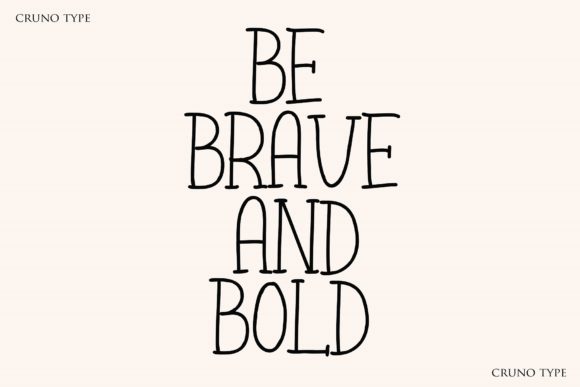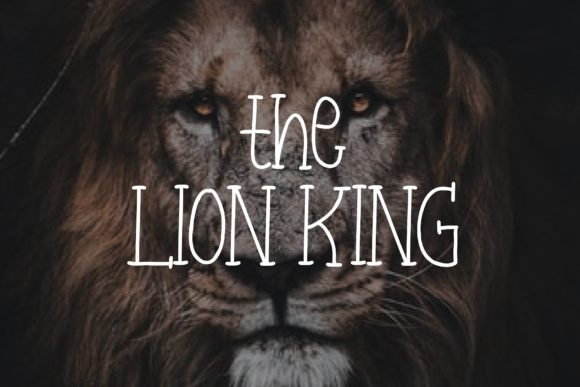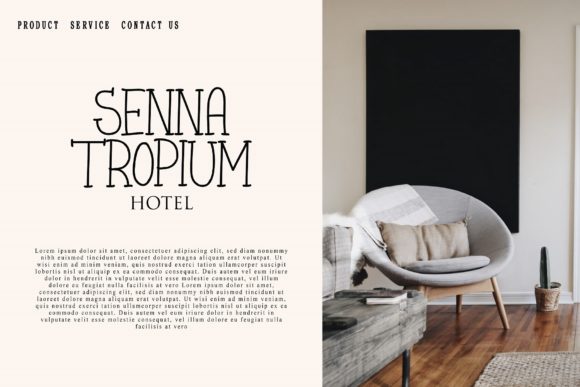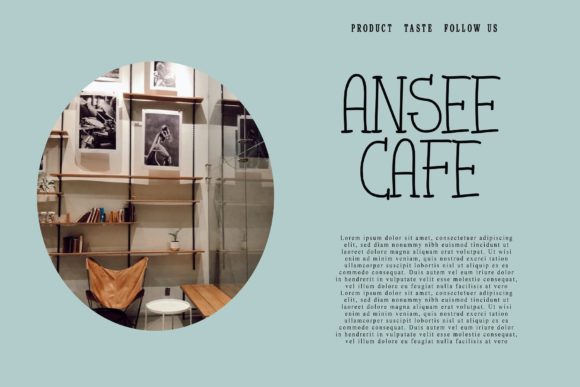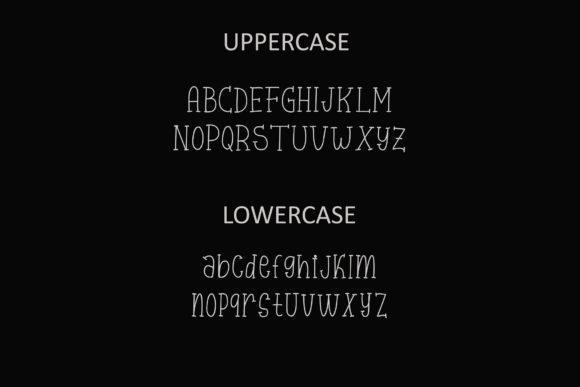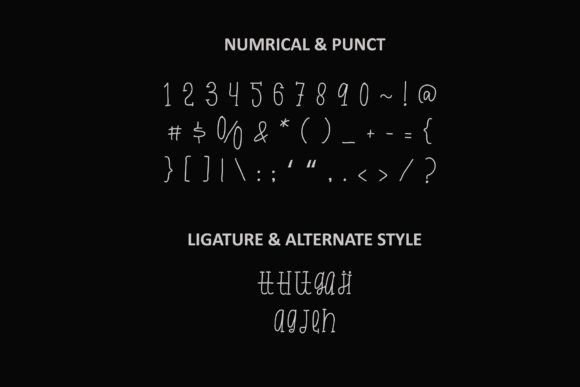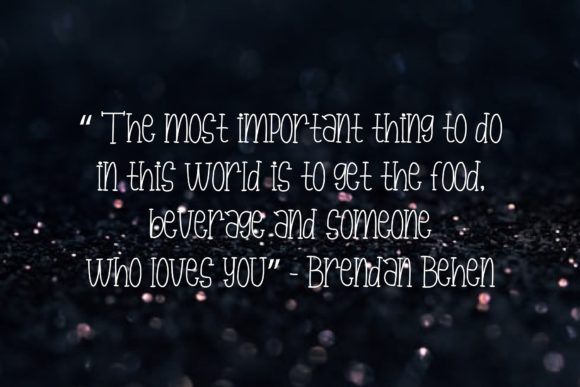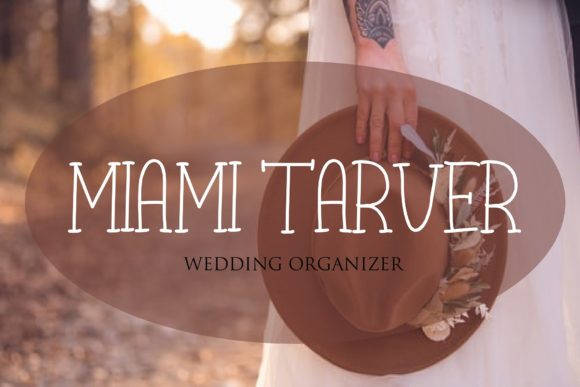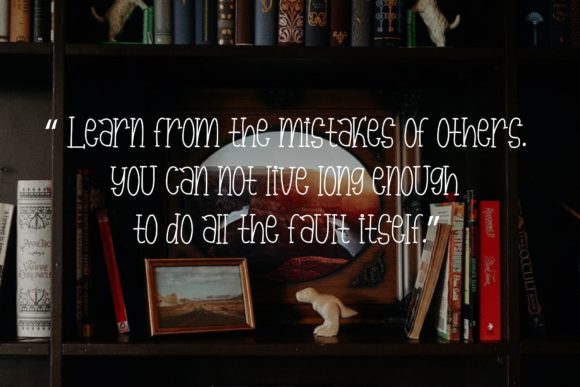
Cruno Font
About Cruno Font
Introducing Cruno, a cute, quirky, and informal handwritten font that brings a personal and realistic feel to your designs. This font is designed to add a touch of authenticity and charm, creating a unique and delightful atmosphere in your projects.
Cruno’s cute and quirky letterforms set it apart as a font that captures attention and adds a playful and informal aesthetic to your compositions. Each character is carefully crafted with a sense of personality and whimsy, creating a visually appealing and delightful composition. This combination of cuteness and informality adds a distinct and charming element to your designs, making them feel personal and relatable.
The versatility of Cruno allows it to shine in various design contexts. Whether you’re working on branding, social media graphics, greeting cards, or any other creative project, Cruno adds a touch of authenticity and quirkiness. Its handwritten nature creates a visually engaging and friendly aesthetic that enhances the overall visual appeal.
Cruno’s cute, quirky, and informal style makes it suitable for a wide range of designs. The playful and charming look of the letters adds a sense of personality and authenticity to your projects. Whether used for creating eye-catching logos, adding a whimsical touch to typography, or conveying a friendly message, Cruno brings a unique and delightful charm.
No matter the design context or project, Cruno has the potential to enhance any creation. Its cute, quirky, and informal nature make it a perfect choice for various design projects. Let Cruno add a touch of authenticity and charm to your designs, creating visually captivating compositions that leave a lasting impression.
In summary, Cruno is a cute, quirky, and informal handwritten font that adds a personal and realistic feel to your designs. Its charming and whimsical letterforms capture attention while maintaining a sense of informality. Embrace the versatility of Cruno and confidently incorporate it into your various design projects, creating visually captivating compositions that leave a lasting impression.